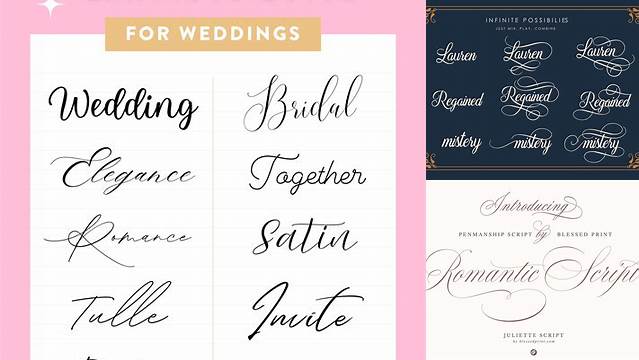
Elegant Wedding Script Fonts: Your Ultimate Guide
Choosing the right font for your wedding invitations, signage, and other stationery is crucial for setting the tone and reflecting your unique style as a couple. Elegant wedding script fonts can add a touch of romance, sophistication, and personality to your special day. But with so many options available, it can be overwhelming to select the perfect one. In this guide, we'll explore the world of elegant wedding script fonts, providing you with insights, tips, and inspiration to make your wedding stationery truly unforgettable.
Why Choose Script Fonts for Your Wedding?
Script fonts, with their flowing lines and handwritten aesthetic, have long been a popular choice for weddings. Guys, these fonts evoke a sense of tradition, elegance, and romance, making them ideal for conveying the specialness of your big day. They add a personal touch that can make your wedding stationery feel more intimate and heartfelt. Script fonts come in a wide variety of styles, from classic calligraphy-inspired scripts to modern, whimsical designs, offering you the flexibility to find the perfect match for your wedding theme and personality. The use of elegant wedding script fonts isn't just about aesthetics; it’s about creating an emotional connection with your guests from the moment they receive the invitation. Think about it, a beautifully scripted invitation sets the stage for the entire event, hinting at the elegance and joy to come. Choosing the right script font can truly elevate the look and feel of your wedding.
The Emotional Impact of Script Fonts
The visual appeal of elegant wedding script fonts extends beyond mere aesthetics; it taps into our emotions and perceptions. Script fonts inherently possess a human touch, reminiscent of handwritten letters and personal notes. This connection to handwriting evokes feelings of warmth, intimacy, and sincerity, which are perfect for a wedding. The graceful curves and flowing lines of script fonts can create a sense of romance and sophistication, setting the tone for a memorable event. Imagine your guests receiving an invitation with delicate script lettering; it immediately conveys the care and attention to detail you've put into planning your wedding. This emotional resonance is what makes script fonts such a powerful tool for communicating the essence of your special day. Furthermore, the legibility of your chosen font is critical. While a beautifully intricate script might look stunning, it’s crucial to ensure that your guests can easily read the important details like the date, time, and venue. Balance is key – selecting a script font that is both elegant and legible will ensure your message is received loud and clear. So, consider the emotional impact and practical considerations when making your choice.
Versatility of Script Fonts in Wedding Stationery
One of the greatest advantages of elegant wedding script fonts is their versatility. They can be used across a wide range of wedding stationery, from invitations and save-the-dates to place cards, menus, and thank-you notes. This allows you to create a cohesive and visually appealing look throughout your wedding. For example, you might use a formal calligraphy-style script for your invitations to create a sense of tradition and elegance, while opting for a more playful and modern script for your menus and place cards. The key is to choose fonts that complement each other and reflect your overall wedding style. Script fonts also pair beautifully with other font styles, such as serif and sans-serif fonts, creating visual interest and balance. You could use a script font for the headings and a clean serif font for the body text, ensuring that your stationery is both stylish and easy to read. The possibilities are endless, guys! The versatility of script fonts allows you to express your creativity and personalize your wedding stationery in a way that truly reflects your personality as a couple.
Popular Styles of Elegant Wedding Script Fonts
When it comes to elegant wedding script fonts, there's a diverse array of styles to choose from, each with its own unique charm and character. Understanding these different styles can help you narrow down your options and find the perfect fit for your wedding. Let's explore some of the most popular categories:
Calligraphy-Inspired Scripts
Calligraphy-inspired scripts are timeless and classic, reminiscent of traditional hand lettering. These fonts often feature elegant flourishes, delicate strokes, and a sense of formality. They're ideal for couples who want to create a sophisticated and timeless wedding aesthetic. Think of fonts like Adelia, Beloved, or Samantha Script. These fonts exude a sense of tradition and refinement, making them perfect for formal weddings or those with a vintage theme. Guys, imagine your names beautifully calligraphed on your invitations – it’s the epitome of elegance! These types of scripts often have varying stroke widths, which mimic the natural flow of a calligrapher's pen, adding to their authentic and handcrafted feel. When using calligraphy-inspired scripts, it's important to consider the overall legibility, particularly for smaller text sizes. You might want to reserve these fonts for headings, names, or other prominent elements, while opting for a simpler font for the body text to ensure readability.
Modern Script Fonts
Modern script fonts offer a fresh and contemporary take on traditional script styles. They often feature cleaner lines, simpler letterforms, and a more playful feel. These fonts are perfect for couples who want a stylish and on-trend wedding aesthetic. Examples include Magnolia Sky, Hello Beautiful, or The Blooming Elegant. These fonts bring a contemporary flair while still maintaining the elegance and romantic appeal of script. Modern scripts often have a lighter and airier feel compared to their calligraphy-inspired counterparts, making them suitable for a variety of wedding styles, from bohemian chic to minimalist modern. They pair exceptionally well with sans-serif fonts, creating a balanced and visually appealing contrast. When using modern script fonts, consider the overall tone you want to convey. Some modern scripts lean towards playful and whimsical, while others are more sophisticated and refined. Choosing the right one will depend on your wedding theme and personal style.
Whimsical and Playful Scripts
If you're looking to add a touch of fun and personality to your wedding stationery, whimsical and playful scripts are an excellent choice. These fonts often feature unique letterforms, quirky details, and a lighthearted feel. They're ideal for couples who want to create a relaxed and joyful wedding atmosphere. Consider fonts like Lemon Jelly, Stay Classy, or Peaches and Cream. These scripts can add a touch of personality and charm to your wedding invitations, making them stand out and reflect your unique style. Whimsical scripts often feature exaggerated loops, playful swashes, and a more informal feel compared to traditional scripts. They are perfect for outdoor weddings, garden parties, or any celebration where you want to create a sense of fun and excitement. However, it's important to use these fonts sparingly and ensure they are still legible. Overusing a whimsical script can make your stationery look cluttered and difficult to read. Instead, use them for specific elements like headings or decorative accents, pairing them with a simpler font for the main text.
Tips for Choosing the Perfect Wedding Script Font
Choosing the perfect elegant wedding script font can feel like a daunting task, but by considering a few key factors, you can make the process much smoother and more enjoyable. Here are some tips to guide you:
Consider Your Wedding Style and Theme
The first and most important step is to consider your overall wedding style and theme. Are you planning a formal, traditional affair or a more relaxed, bohemian celebration? Your font choice should align with the aesthetic you're trying to create. A classic calligraphy script might be perfect for a black-tie wedding, while a modern script could be a better fit for a minimalist or contemporary event. For a rustic or whimsical wedding, a playful script might be just the ticket. Think about the colors, decorations, and overall vibe of your wedding, and choose a font that complements those elements. For instance, if your wedding features a lot of floral elements, a script font with delicate swashes and flourishes might be a great choice. On the other hand, if you're going for a sleek and modern look, a clean and simple script font would be more appropriate. The key is to ensure that your font choice enhances the overall aesthetic of your wedding and reflects your personal style as a couple.
Ensure Legibility
While aesthetics are important, legibility should always be a top priority. Guys, there’s no point in choosing a beautiful font if your guests can't read it! Avoid overly ornate or intricate scripts that can be difficult to decipher, especially in smaller sizes. Consider the spacing between letters and words, and make sure the font is clear and easy to read. It's always a good idea to print out a sample of your chosen font in different sizes to see how it looks in real life. Pay particular attention to the legibility of key information such as the date, time, and location of your wedding. You might want to use a simpler font for the body text of your invitations and save the more elaborate script for headings or names. Remember, the goal is to communicate effectively with your guests, so choose a font that is both elegant and readable.
Pair Script Fonts with Other Fonts
To create a visually appealing and balanced design, it's often best to pair your elegant wedding script fonts with other font styles. A script font can look stunning for headings or names, but using it for large blocks of text can be overwhelming and difficult to read. Consider pairing your script font with a clean serif or sans-serif font for the body text. This creates a contrast that is both stylish and functional. For example, you might use a calligraphy-inspired script for your names and a classic serif font like Times New Roman or Garamond for the invitation details. Alternatively, you could pair a modern script with a sans-serif font like Helvetica or Arial for a more contemporary look. When choosing fonts to pair, consider their weight, size, and overall style. You want to create a harmonious balance that enhances the legibility and visual appeal of your stationery. Experiment with different combinations until you find a pairing that feels just right for your wedding.
Where to Find Elegant Wedding Script Fonts
Finding the perfect elegant wedding script fonts is easier than ever, thanks to the abundance of online resources available. Here are some popular places to find fonts for your wedding stationery:
Online Font Marketplaces
Online font marketplaces like MyFonts, Creative Market, and Fontspring offer a vast selection of fonts, including a wide range of elegant script fonts perfect for weddings. These marketplaces allow you to browse fonts by style, price, and other criteria, making it easy to find exactly what you're looking for. Many fonts are available for purchase on a per-font basis, while others are offered as part of a subscription service. These platforms often feature fonts from independent designers, giving you access to unique and high-quality options. You can typically preview the font before purchasing, allowing you to see how it looks with your names and wedding details. Be sure to check the licensing terms before using a font to ensure it's suitable for your intended purpose. Some fonts are licensed for personal use only, while others can be used commercially.
Free Font Websites
If you're on a tight budget, there are also many websites that offer free fonts, such as Google Fonts, DaFont, and Font Squirrel. While the selection may not be as extensive as on paid marketplaces, you can still find some beautiful script fonts for your wedding. Google Fonts is a particularly great resource, as it offers a wide range of high-quality fonts that are free for both personal and commercial use. However, it's important to be mindful of the quality and licensing of free fonts. Some free fonts may not be as well-designed or as legible as paid fonts, and some may have restrictions on their use. Always check the licensing terms before using a free font to ensure you're complying with the designer's wishes. If you find a free font that you love, consider making a donation to the designer to support their work. Guys, remember that even free fonts require the designer's effort and time, so showing your appreciation is always a nice gesture.
Hiring a Calligrapher or Designer
For a truly unique and personalized touch, consider hiring a calligrapher or designer to create custom fonts or hand-lettering for your wedding stationery. This option allows you to have a font that is completely tailored to your style and vision. A professional calligrapher can create beautiful, hand-drawn lettering that adds an extra layer of elegance and sophistication to your invitations. A designer can create a custom font that incorporates specific elements or motifs from your wedding theme. While this option may be more expensive than using pre-made fonts, the results can be truly stunning and memorable. When hiring a calligrapher or designer, be sure to review their portfolio and discuss your vision in detail to ensure they can create exactly what you're looking for. You might also want to ask about their pricing, timeline, and process for revisions. A custom font or hand-lettering can be a beautiful investment that adds a personal touch to your wedding stationery and sets the tone for your special day.
Choosing the perfect elegant wedding script fonts is an important part of planning your wedding. By considering your wedding style, ensuring legibility, and exploring different font styles and resources, you can find a font that truly reflects your personality as a couple and sets the tone for your special day. Whether you opt for a classic calligraphy script, a modern font, or a whimsical design, your wedding stationery will be a beautiful reflection of your love story. So, go ahead, guys, and let your fonts speak volumes!